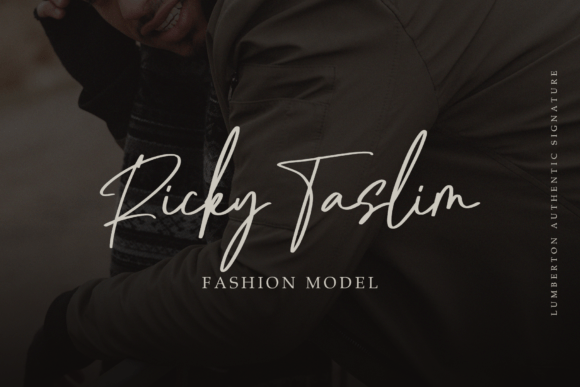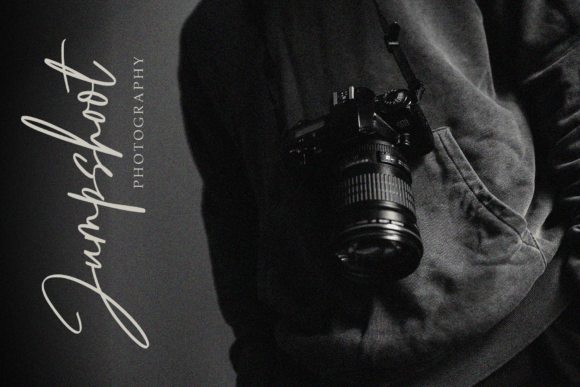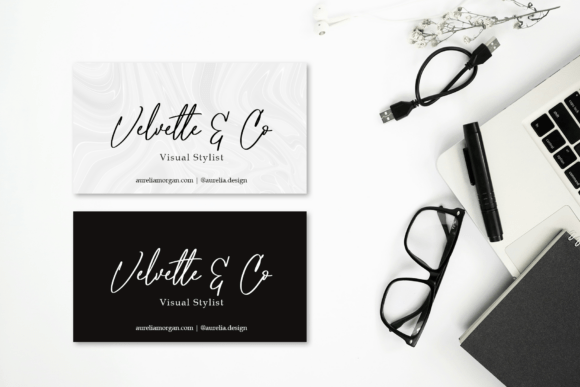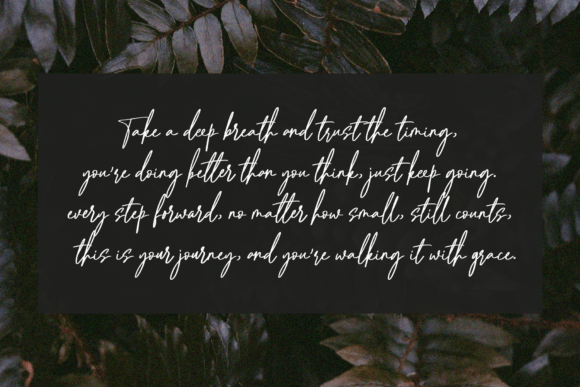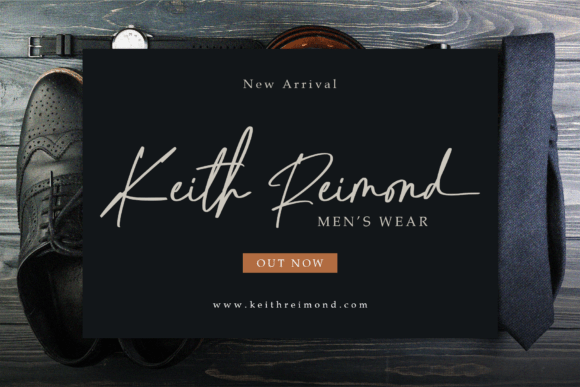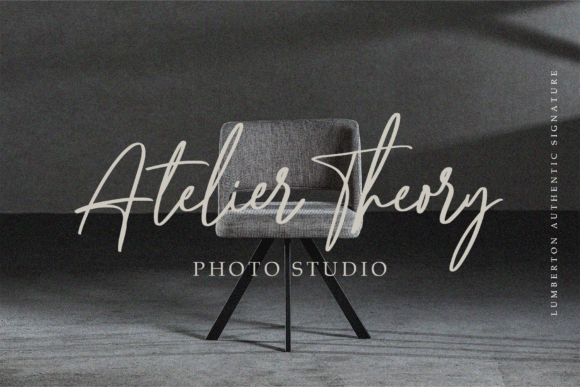
Introduction to Lumberton Font
Have you ever found yourself stuck in front of your computer screen, trying to come up with the perfect design for a client or a personal project? The cursor blinks, the ideas seem to dwindle, and suddenly, a beautifully handwritten signature font appears in your mind’s eye. That’s exactly what happened to me when I discovered the Lumberton Font.
As a designer, I can attest to the value of having a reliable and high-quality design resource like the Lumberton Font. With its elegant and modern touch, it’s perfect for adding a sophisticated signature feel to any creative project. Whether you’re working on logos, business cards, packaging, or wedding stationery, this free download is sure to elevate your designs to the next level.
What sets the Lumberton Font apart is its natural and fluid look, making it ideal for designers who want to give their clients a personal and confident feel. Plus, its transparent background makes it easy to customize and integrate into any design. In this article, we’ll dive deeper into the world of the Lumberton Font and explore its many uses and benefits.
Key Features of Lumberton Font
- Features a unique, hand-drawn style with a transparent background, allowing for seamless integration into designs.
- Perfect for use in various design projects, including logos, branding materials, and digital graphics.
Honest Review: Lumberton Font
I recently stumbled upon the Lumberton Font, a free download that has been a game-changer for my design projects. As a designer, I’m always on the lookout for high-quality design resources that can elevate my creative work.
- ✨ Unique and modern design aesthetic that adds a touch of sophistication to any project
- ✨ Highly legible and clear typography that’s perfect for body text and headings
- ✨ Transparent background option that makes it easy to overlay on images or videos
- ⚠️ Limited character set and glyph support, which may not be suitable for projects requiring complex typography
- ⚠️ May not be compatible with certain font sizes or resolutions, resulting in pixelation or distortion
Overall, I’m impressed with the Lumberton Font’s high quality and versatility. While it may not be perfect, it’s a great addition to any designer’s toolkit, especially for creative projects that require a modern and sleek aesthetic.
Getting the Most Out of Lumberton Font
To get the most out of the Lumberton Font, use it on a transparent background to add depth and visual interest to your designs. Experiment with different font sizes and colors to create a unique look that suits your project.
The Lumberton Font is perfect for: